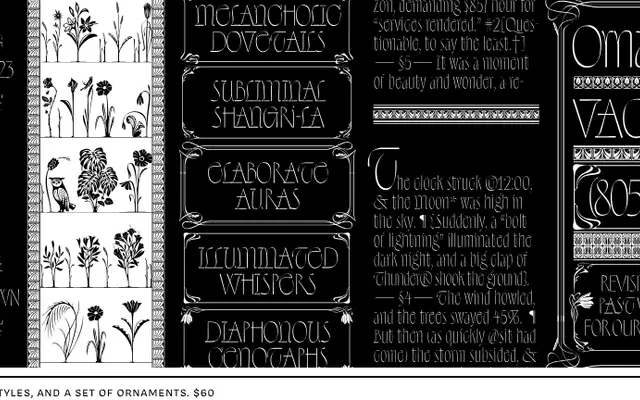
An Art Nouveau-influenced display family in two weights, accompanied by a standalone ornaments font and a vector borders file.
Drawing on the lineage of Arnold Bocklin and Mario Feliciano's Korrodi, this decorative family distils Art Nouveau's organic character into two degrees: Major and Minor. Contextual alternates include straight-legged R and K, flat lowercase stems, a flagged R and a flat-sided E, giving typographers room to control how much period flair appears on the page. The Ornaments font supplies floral and tile patterns, and a bonus vector file of borders rounds out the package.
A decorative display type with explicit Art Nouveau influence, featuring organic ornamental details, floral motifs and contextual alternates typical of the late 19th-century revival aesthetic.